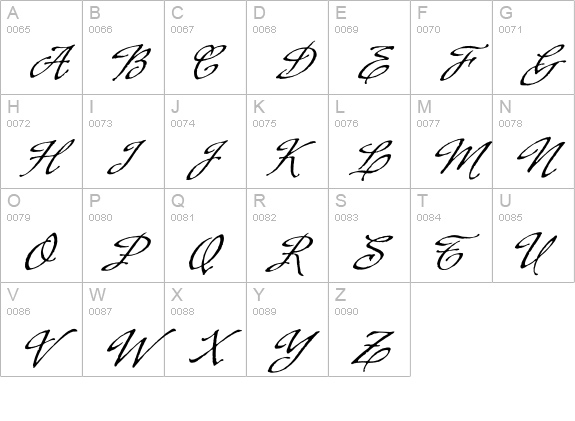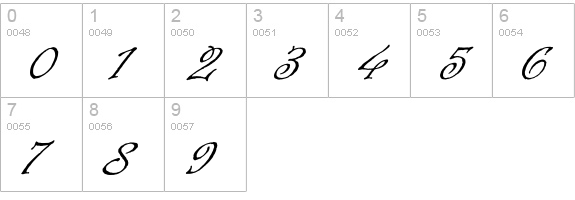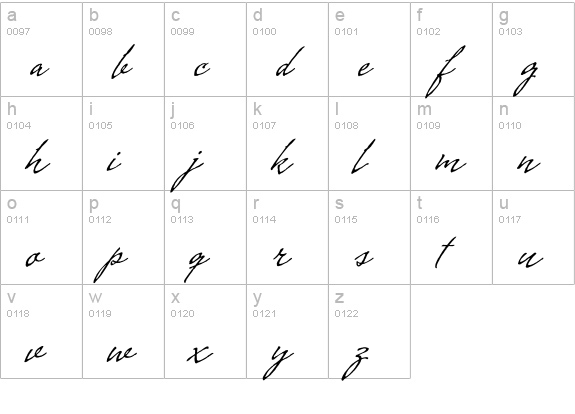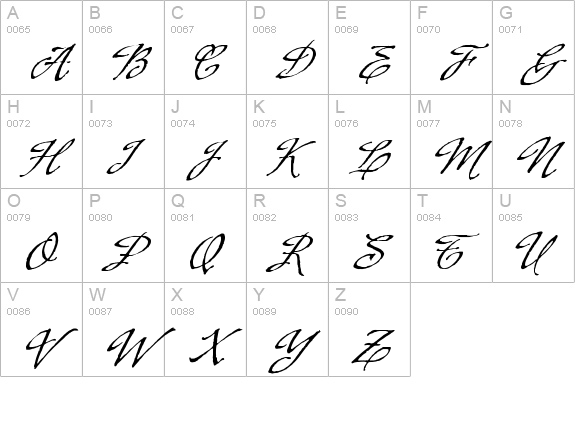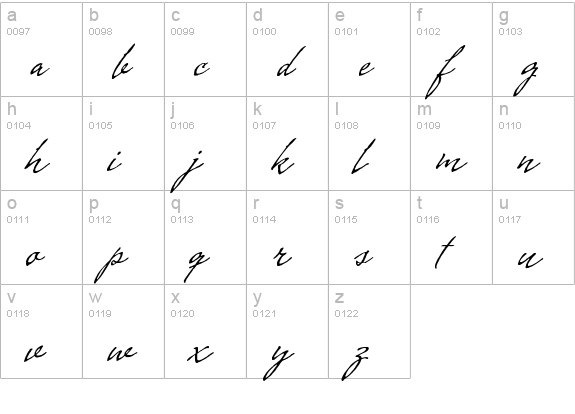
Cenizas Font Details
Cenizas font is a versatile and elegant typeface that exudes sophistication and charm. With its unique blend of modern and classic elements, this font is perfect for a wide range of design projects, from branding to packaging to editorial design. The clean lines and balanced proportions of Cenizas make it a great choice for creating professional and visually appealing layouts. What sets Cenizas font apart is its seamless integration of traditional and contemporary design elements, resulting in a timeless and versatile typeface that will stand the test of time. Whether you're looking to add a touch of sophistication to your next project or want to give your designs a modern twist, Cenizas font is sure to impress. Best of all, Cenizas font is available for free download at FontsMarket.com, making it accessible to designers of all skill levels. So why wait? Download Cenizas font today and elevate your designs to the next level with this stunning typeface.